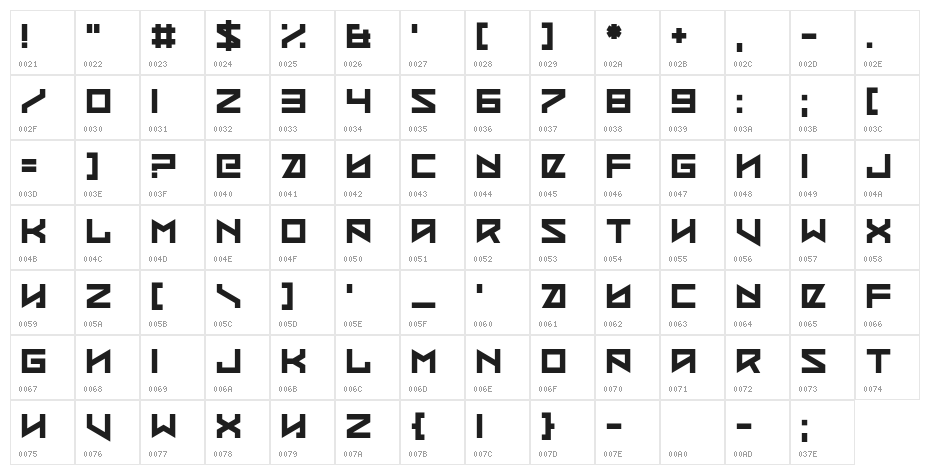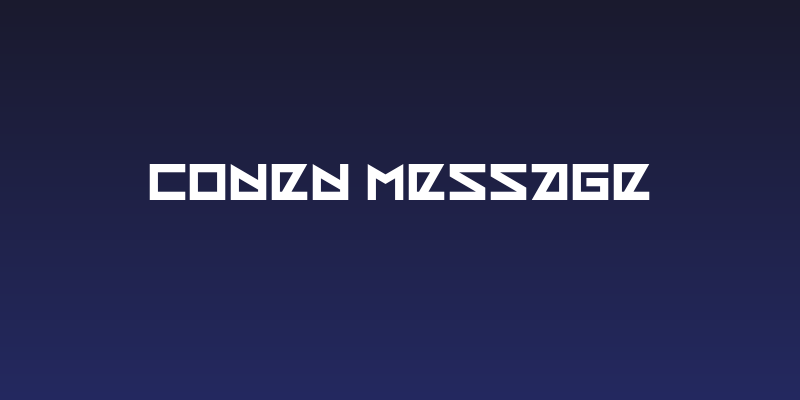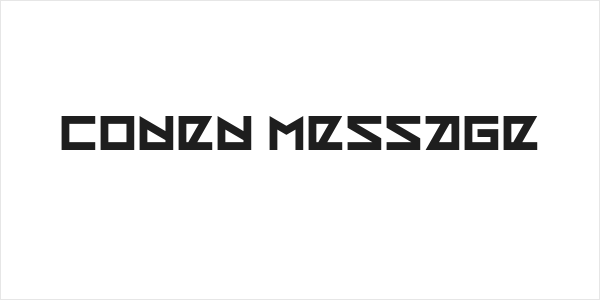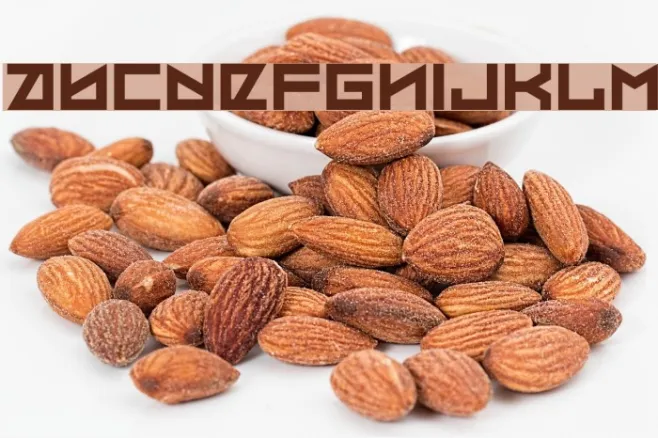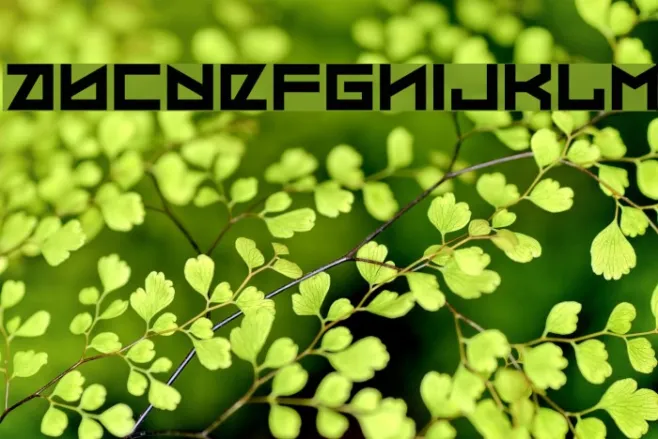
Coded Message Font
Coded Message Description
This font features a bold and geometric design, characterized by sharp angles and a futuristic aesthetic. The uppercase and lowercase letters are constructed with consistent angular forms, creating a cohesive and modern look. The numbers and special characters maintain this angular style, ensuring uniformity across all glyphs. The font's distinct appearance makes it ideal for projects that require a strong visual impact, such as technology branding, sci-fi themes, or modern art displays. Its unique style is both eye-catching and memorable, making it suitable for headlines and logos where a bold statement is desired.
| Proposed Projects | Ideal for technology branding, sci-fi themes, modern art displays, headlines, and logos. |